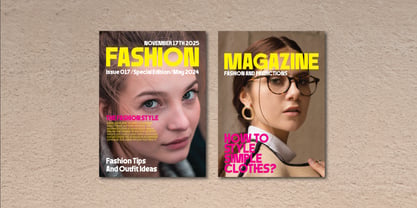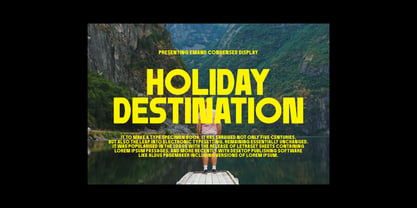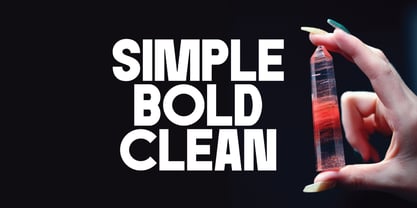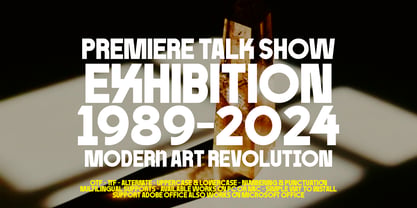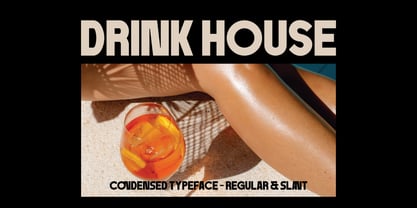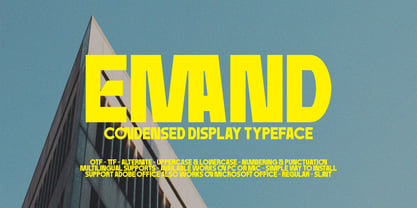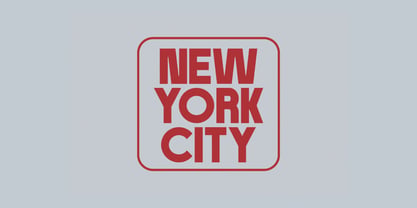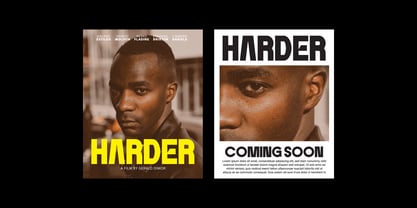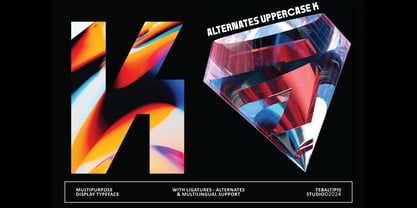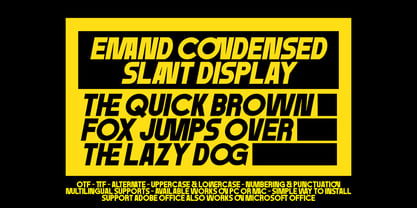
Emand Condensed Slant Display
by Tebaltipis Studio
The Emand Condensed Slant Display Font Family was designed by Dzulka Elfira and published by Tebaltipis Studio. Emand Condensed Slant Display contains 2 styles and family package options. More about this family
Emand Condensed Display - A Condensed Bold Display Typeface Emand Condensed Display the perfect bold and narrow font for headlines and captivating displays. Ideal for designers seeking a modern and impactful look with retro and vintage vibes. Transform your projects with this regular and slant, condensed typeface that demands attention. Emand Condensed Display Font come with 250+ glyphs. The alternative characters were divided into several Open Type features such as Swash, Stylistic Sets, Stylistic Alternates, and Ligature. The Open Type features can be accessed by using Open Type savvy programs such as Adobe Illustrator, Adobe InDesign, Adobe Photoshop Corel Draw X version, And Microsoft Word. And this Font has given PUA unicode (specially coded fonts). so that all the alternate characters can easily be accessed in full by a craftsman or designer.
Designers: Dzulka Elfira
Foundry: Tebaltipis Studio